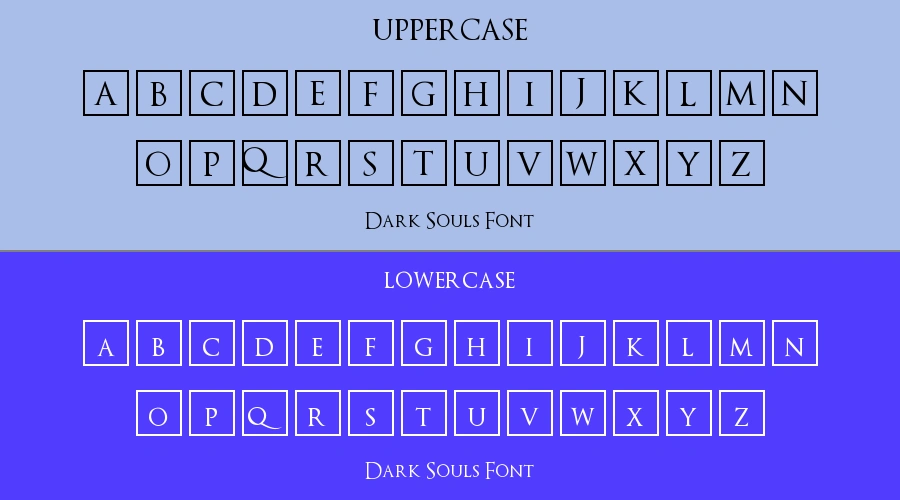
About Dark Souls Font
Designed with precision, Dark Souls Font merges graceful curves with functional clarity in every character. This versatility makes it particularly effective for poster art, where precision and sophistication directly impact communication quality. Each letterform demonstrates meticulous craftsmanship.
Technical excellence shines through elements like elegant proportions and stylistic sets, enhancing typographic versatility. In section headers settings, Dark Souls Font proves its worth through superior print fidelity. The thoughtful execution of counter size and emotional resonance ensures professional results.